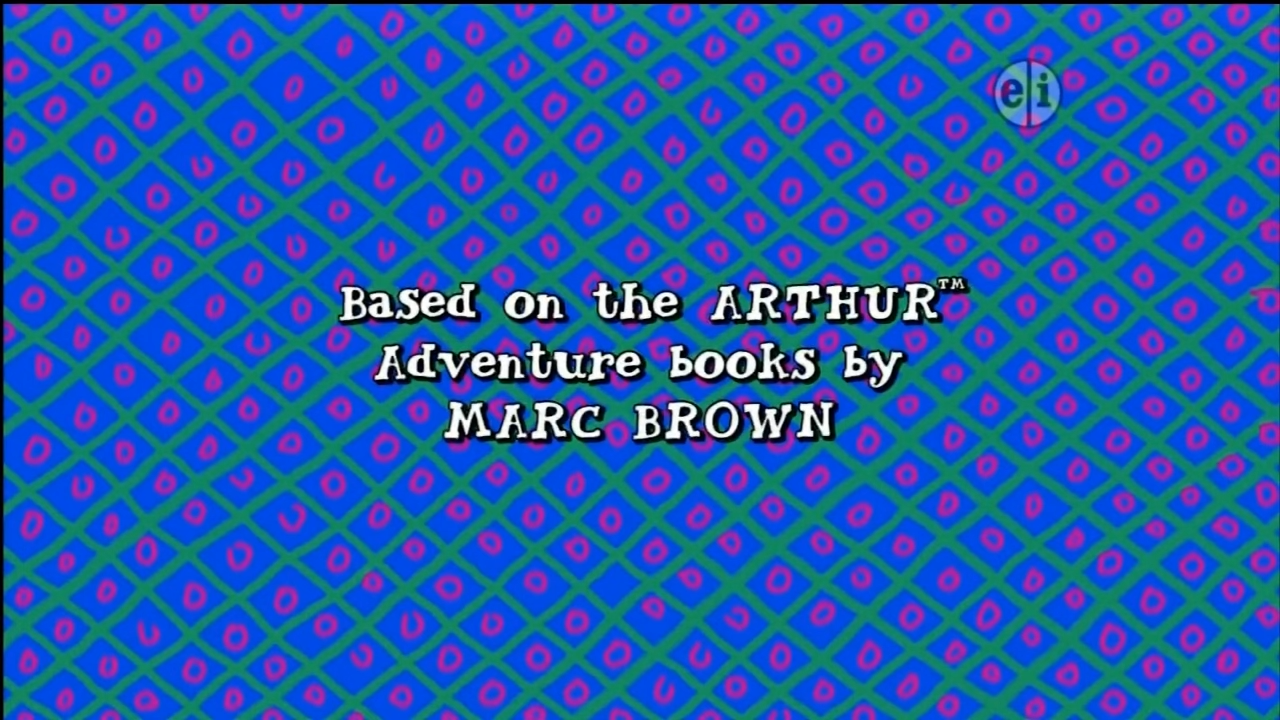
This font is used for the end credits of the ever-popular PBS show, Arthur. I would like to know: What is the name of this typeface, is it free, commercial or custom? Also, can you please send me the link to the font so I can download it? Thank you very much! Hope to hear from you soon!
It appears to be a custom typeface (not commercially available) based on Marc Brown's lettering.
"ArthurPen" was likely created by a fan to emulate the look. A Google search may yield a download source, but I would procede with caution.
Can you look about this ArthurPen Typeface.